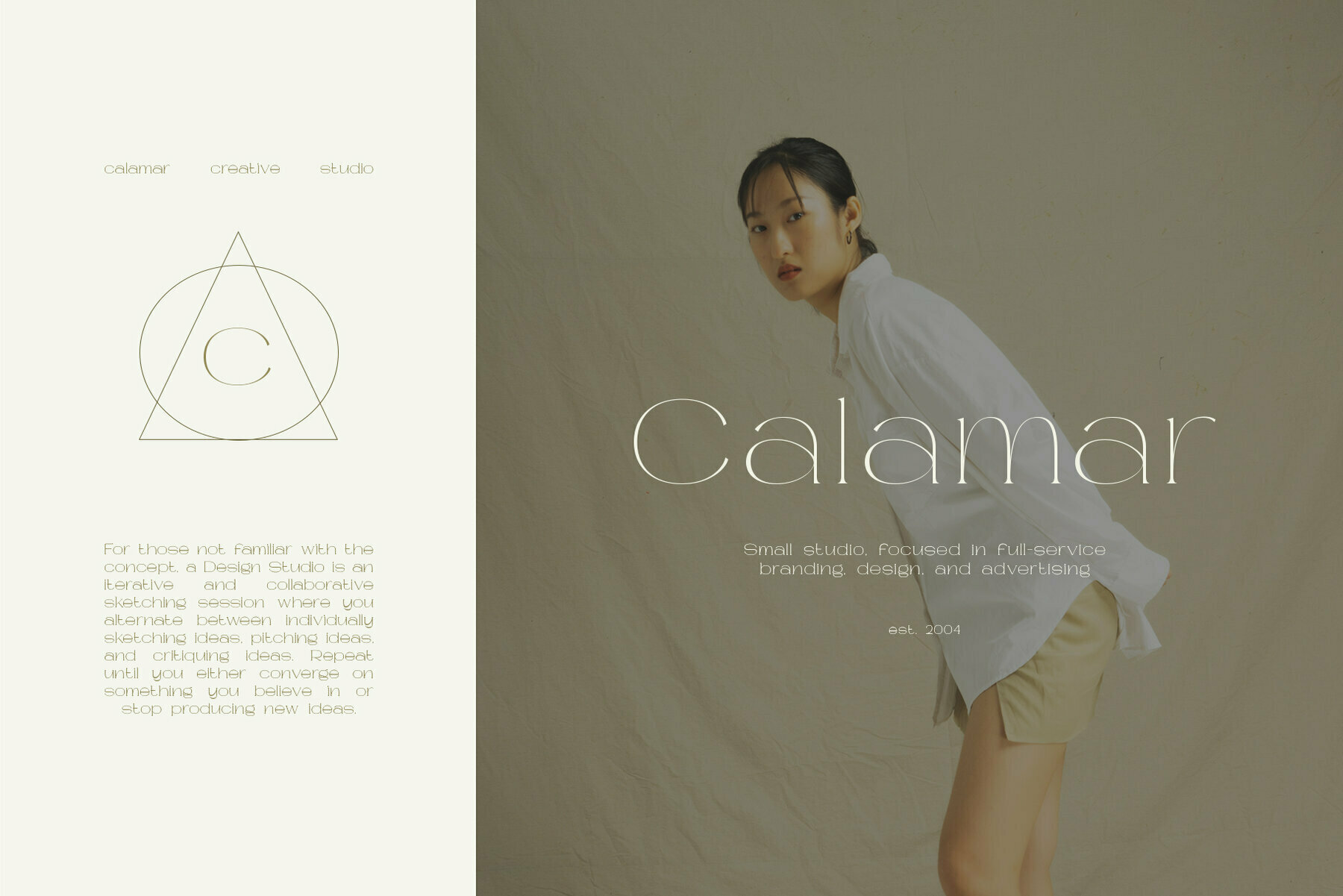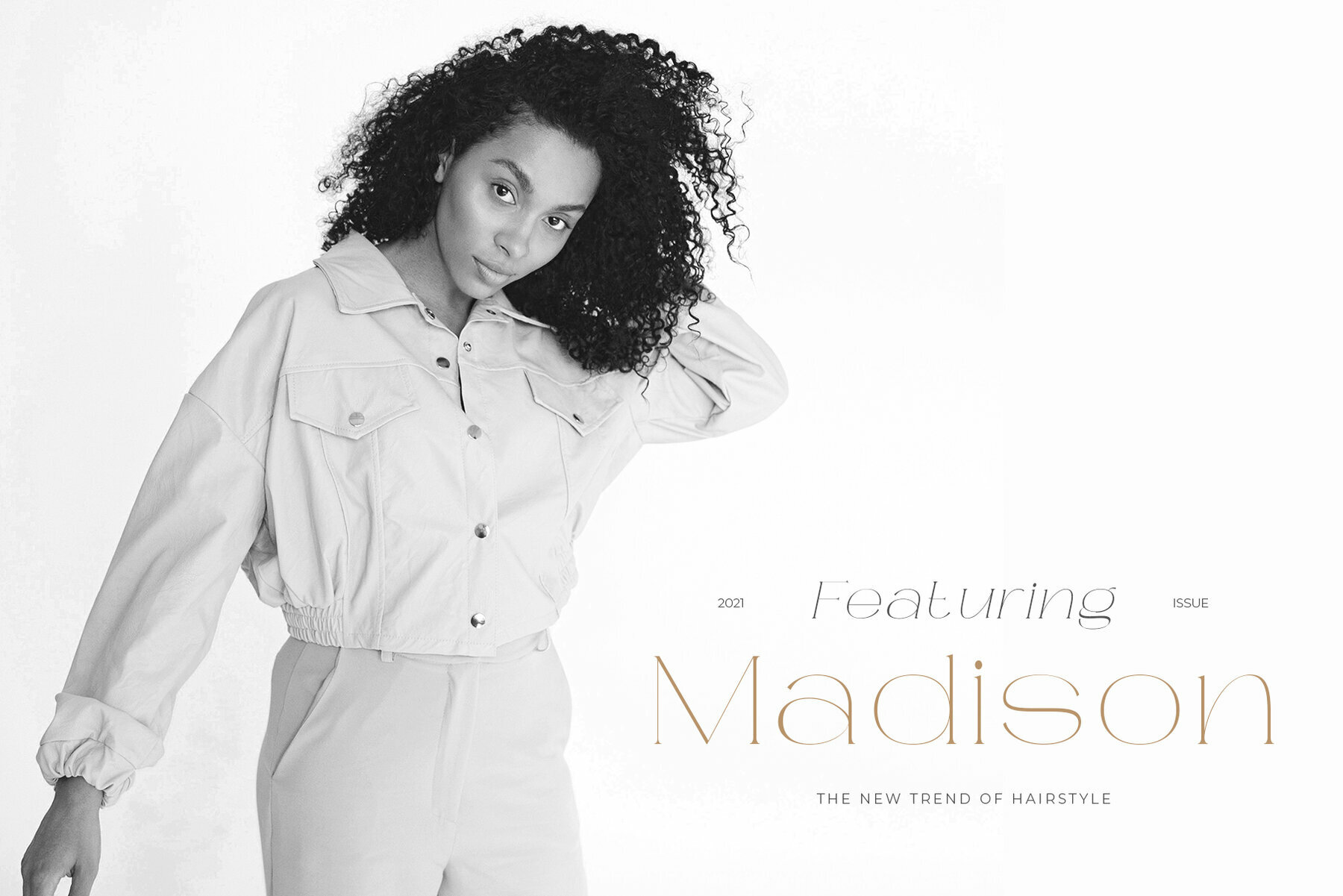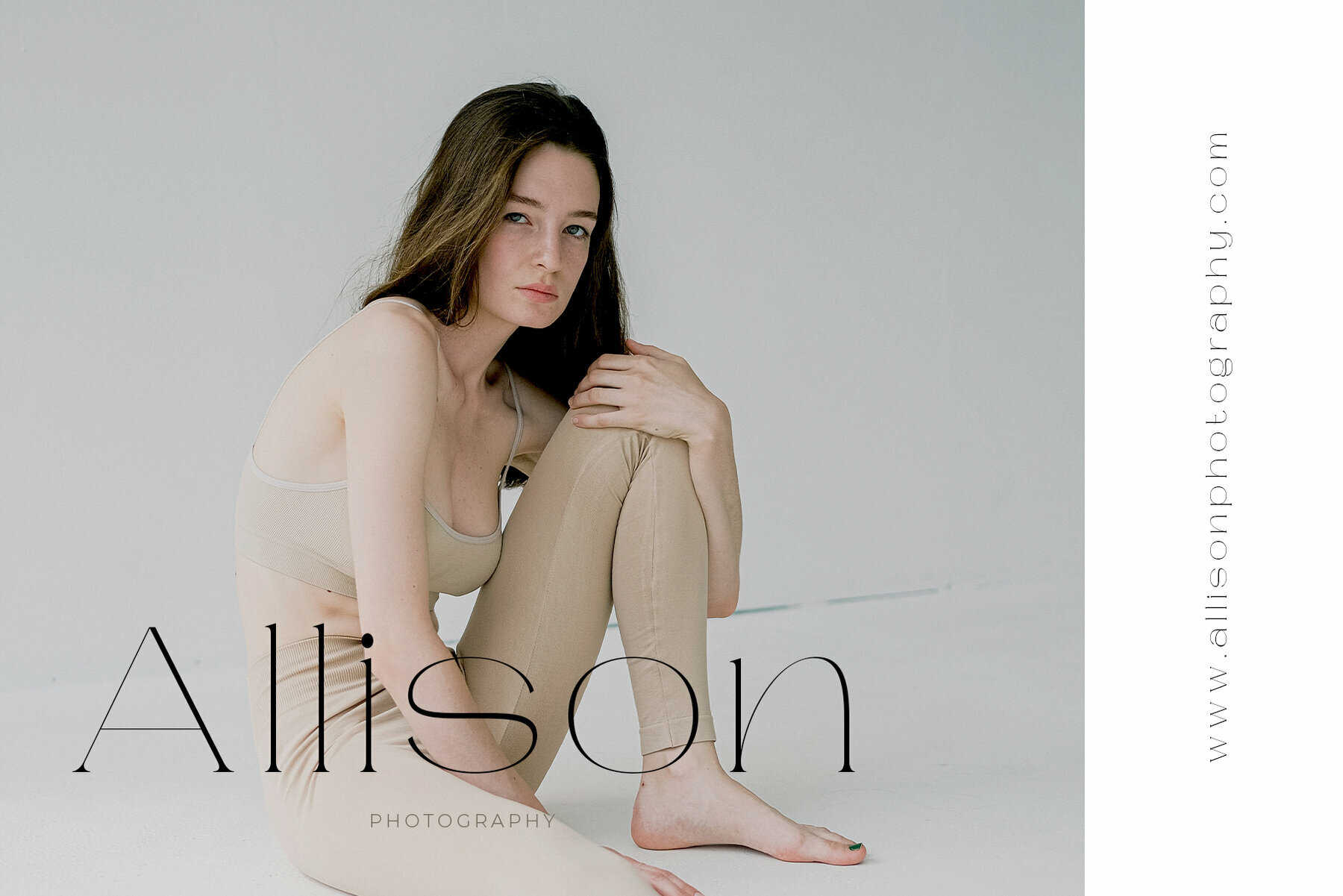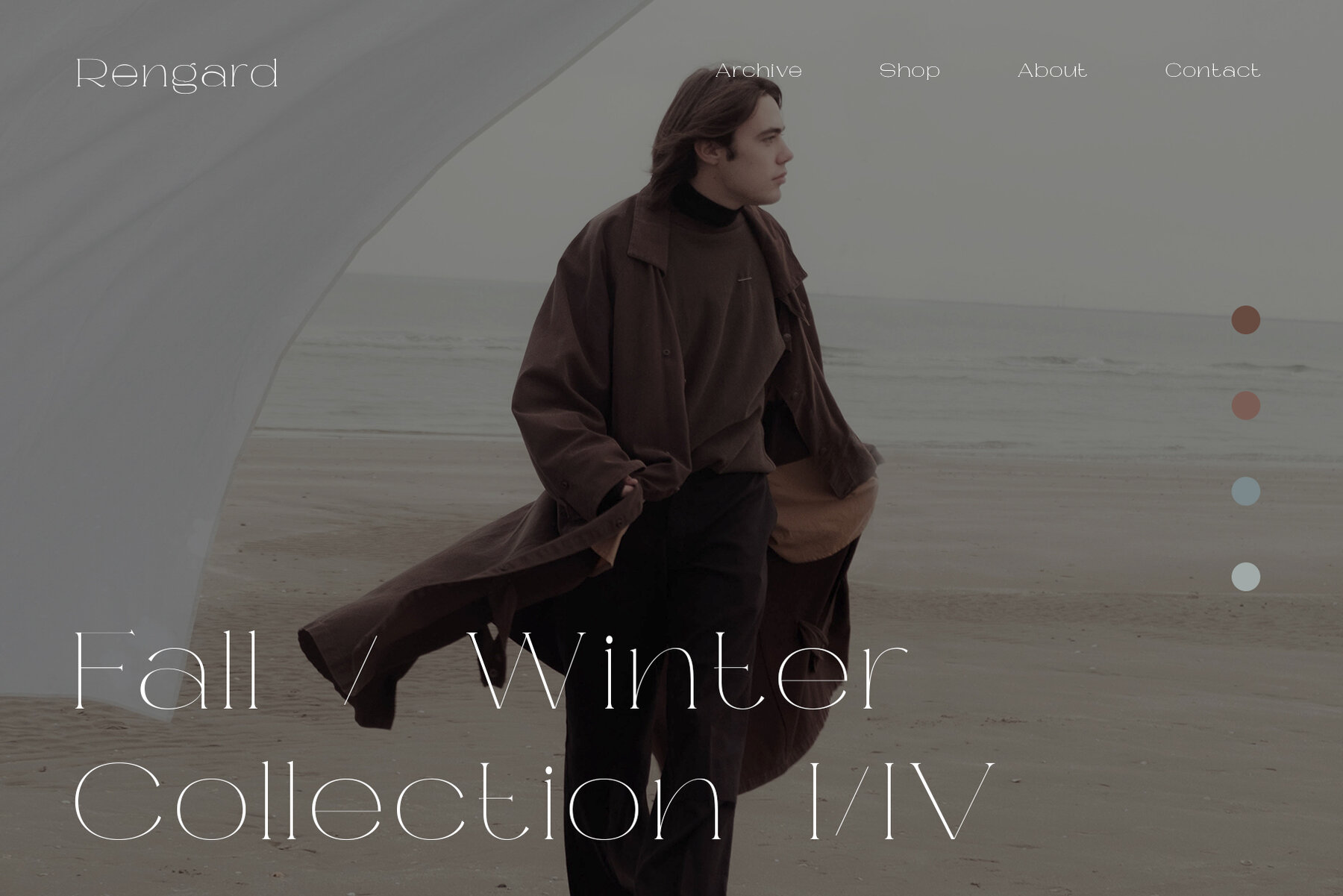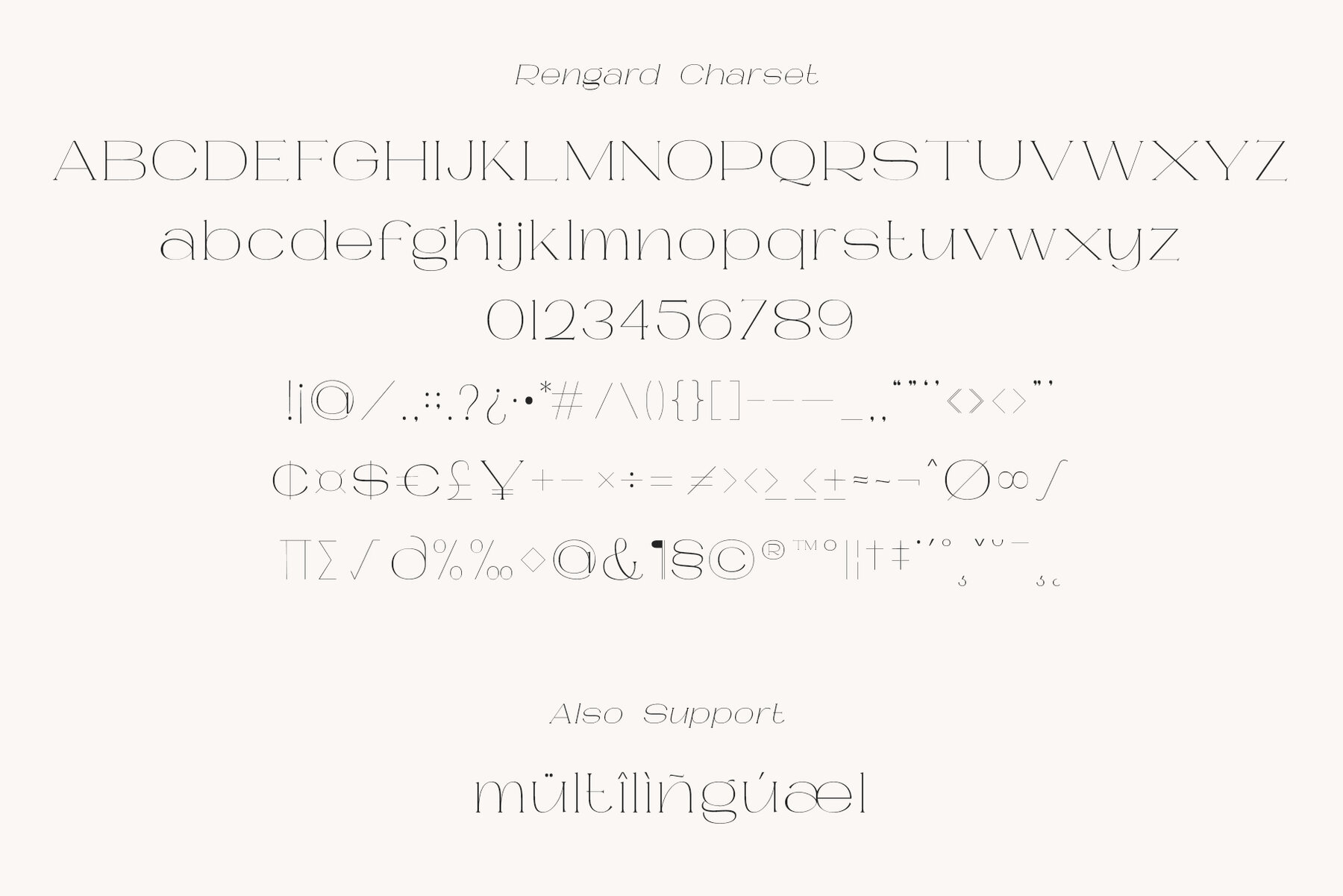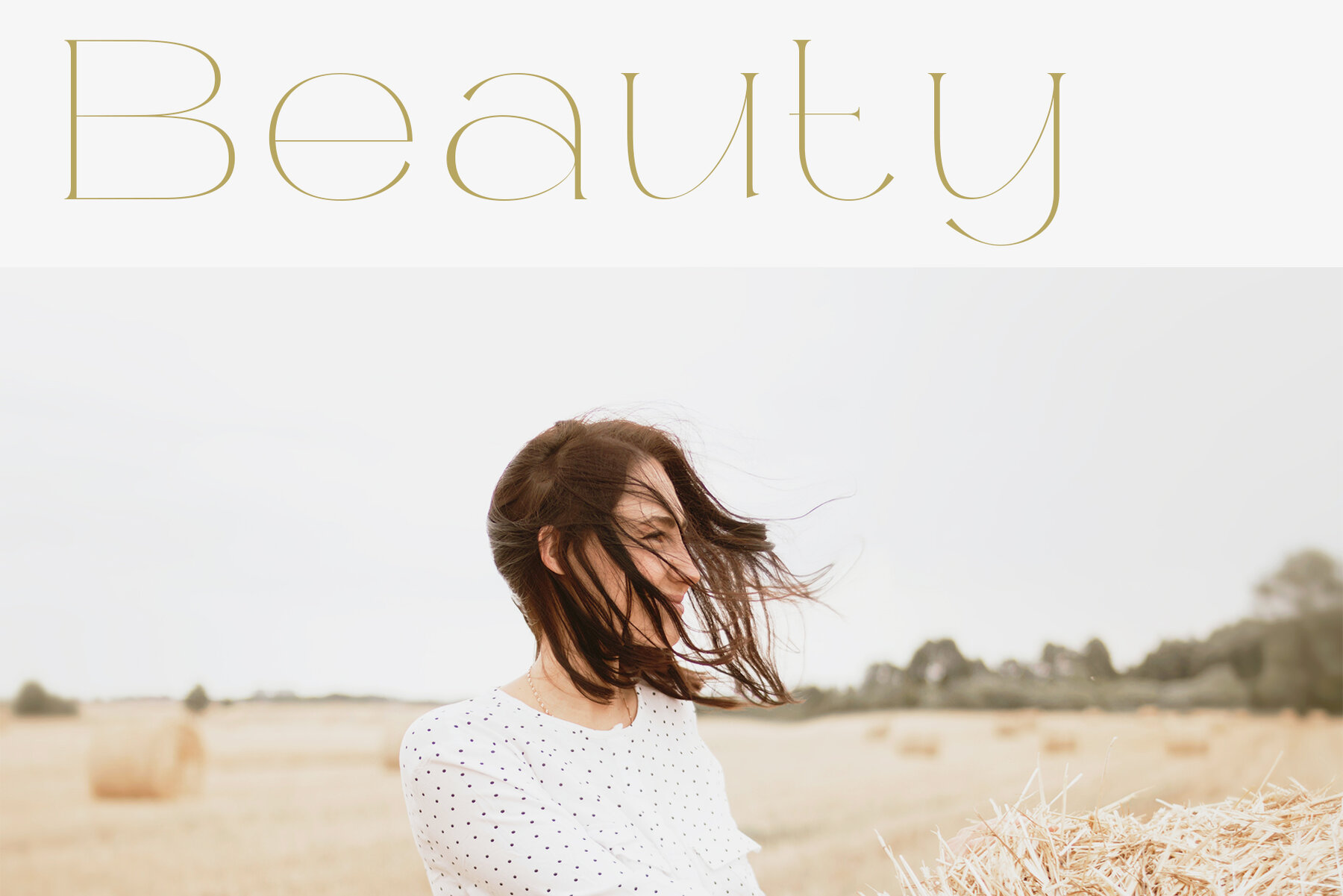
Rengard Font
Embrace a sophisticated touch to your creative projects with Rengard, a modern serif typeface that radiates class and elegance. Its low-contrast design carries a charming and chic appeal, perfect for a variety of design undertakings, whether you are delving into print materials or digital designs. From greeting cards and packaging to brand identities and craft projects, Rengard lends its refined aesthetics to make any design project outstanding. This versatile font is equally at home in DIY projects, book titles, wedding stationery, or retro and pop vintage designs, bringing a trendy yet timeless allure to your creations. Features: Rengard comes in both regular and italic styles, making it adaptable for any creative endeavor without the need for special software. Let this typeface enhance the aesthetic value of your projects with its graceful and polished design.Rengard: A Modern Serif Typeface for Elegant Designs